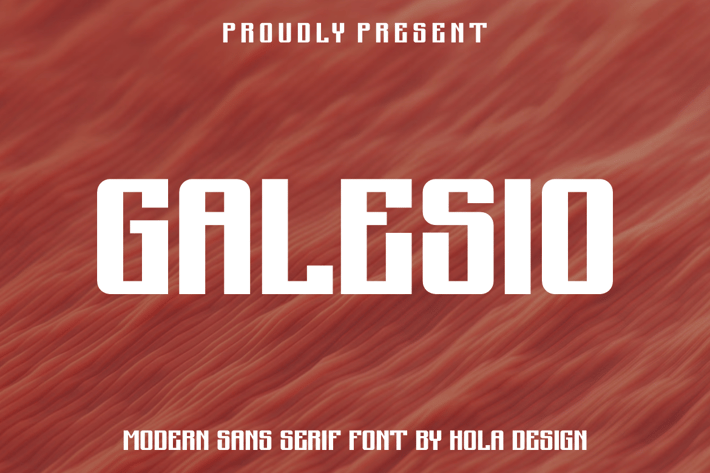
Galesio Modern Sans Serif Font
Galesio Modern Sans Serif Font Font is unique . Ready to use for your design like labeling, movie sceen, poster, movie title, gigs, album covers, logos, and much more.